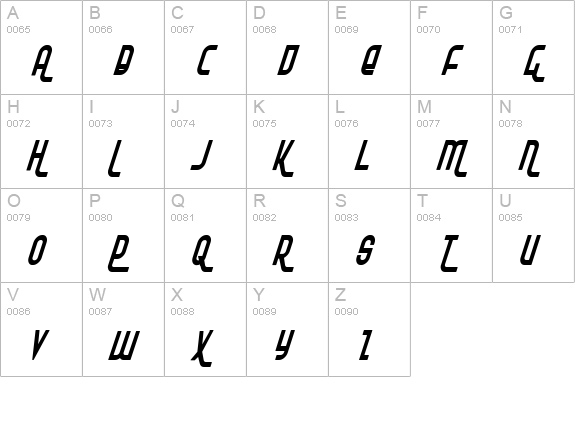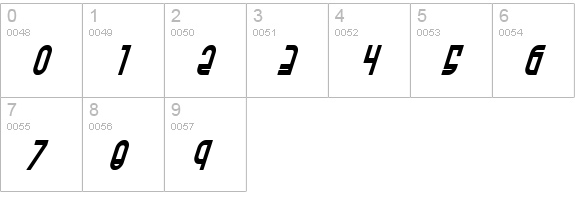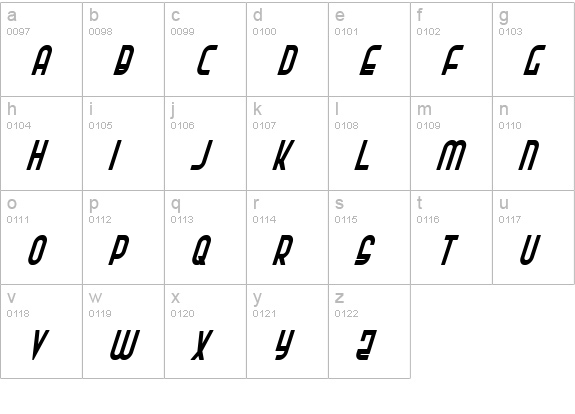
Ro'Ki'Kier Condensed Italic Font Details
Ro'Ki'Kier Condensed Italic font is a sleek and modern typeface that exudes sophistication and elegance. Its unique design features condensed letterforms with a stylish italic slant, making it perfect for adding a touch of flair to any design project. The smooth curves and sharp angles of the characters create a visually striking look that commands attention. This font is not only aesthetically pleasing but also highly versatile, suitable for a wide range of applications including branding, advertising, editorial design, and more. Whether you're creating a logo, poster, website, or any other creative project, Ro'Ki'Kier Condensed Italic font will elevate your work to the next level. And the best part is that this font is completely free to download at FontsMarket.com. So you can enhance your designs with this premium quality typeface without any cost involved. Don't miss out on the opportunity to add Ro'Ki'Kier Condensed Italic font to your font collection today!